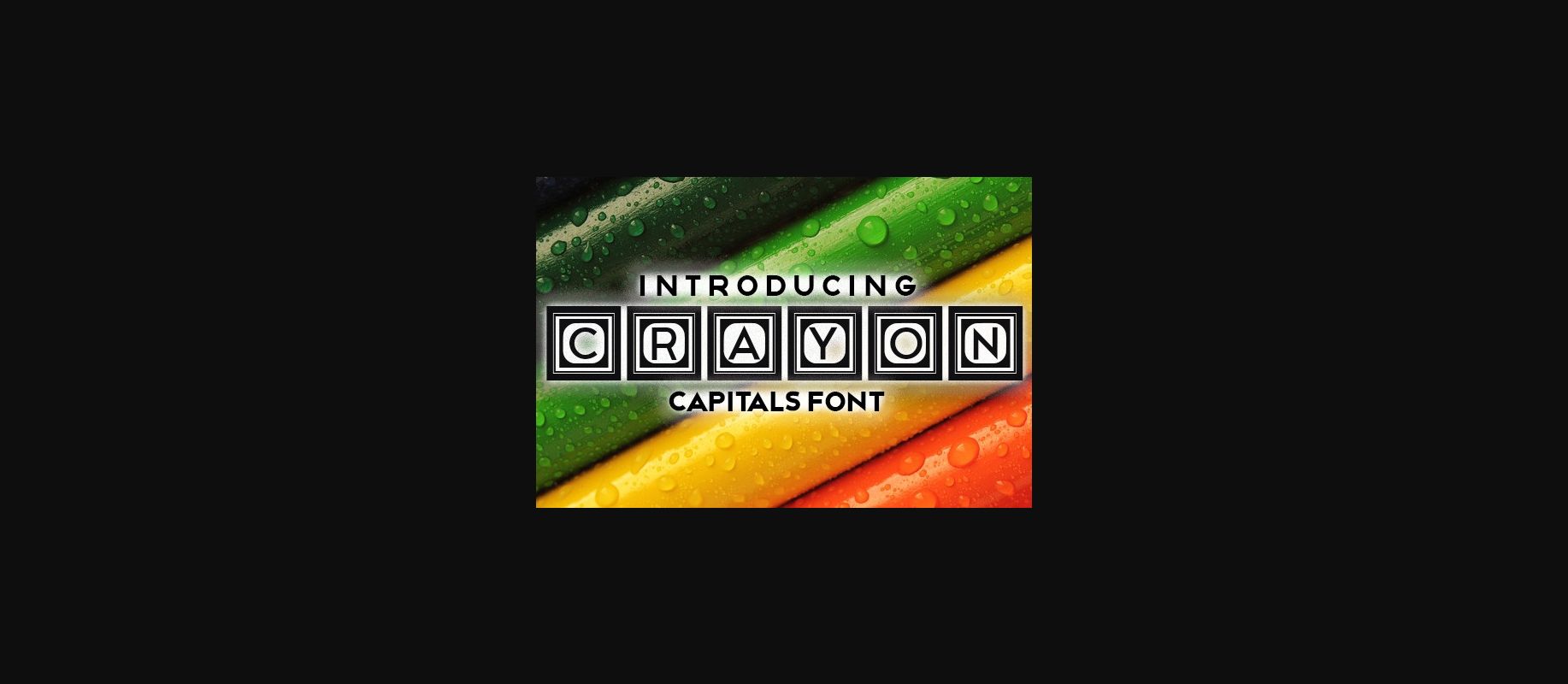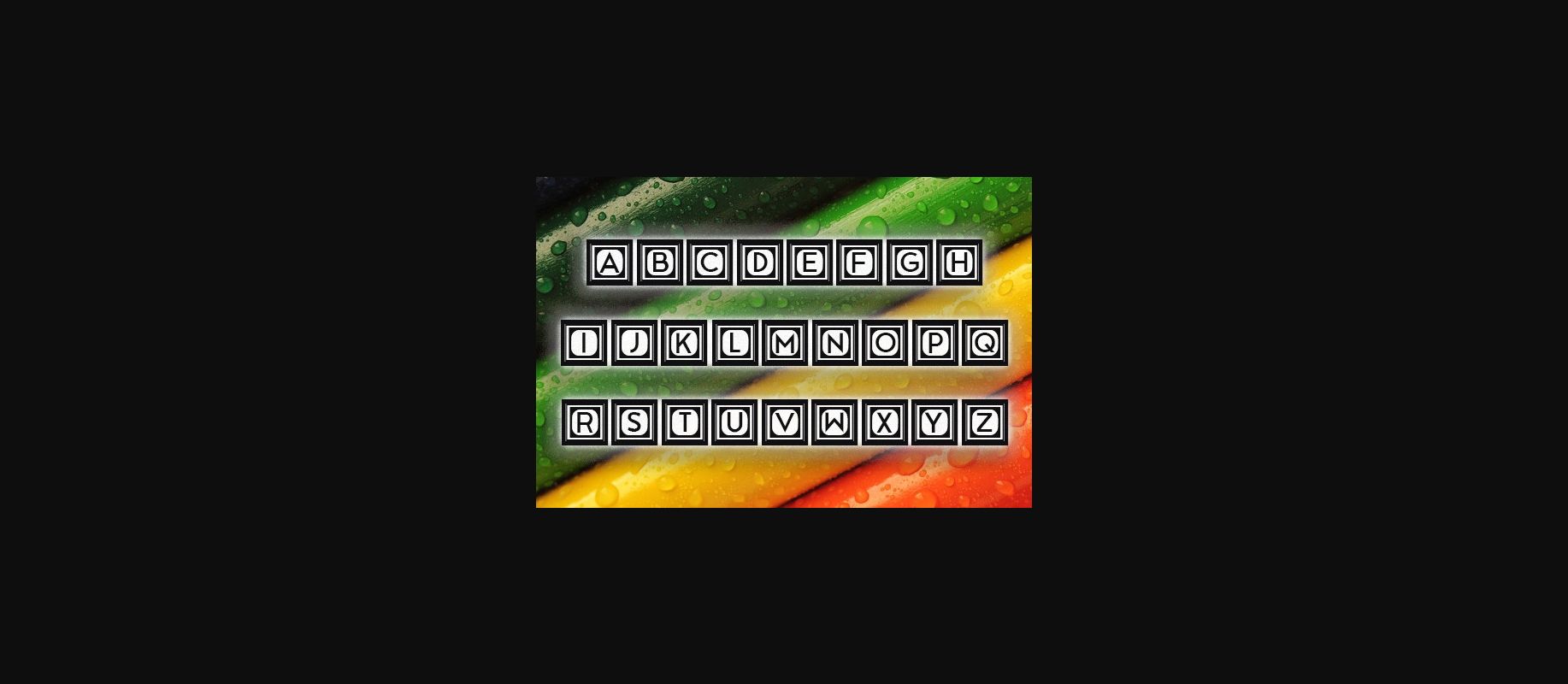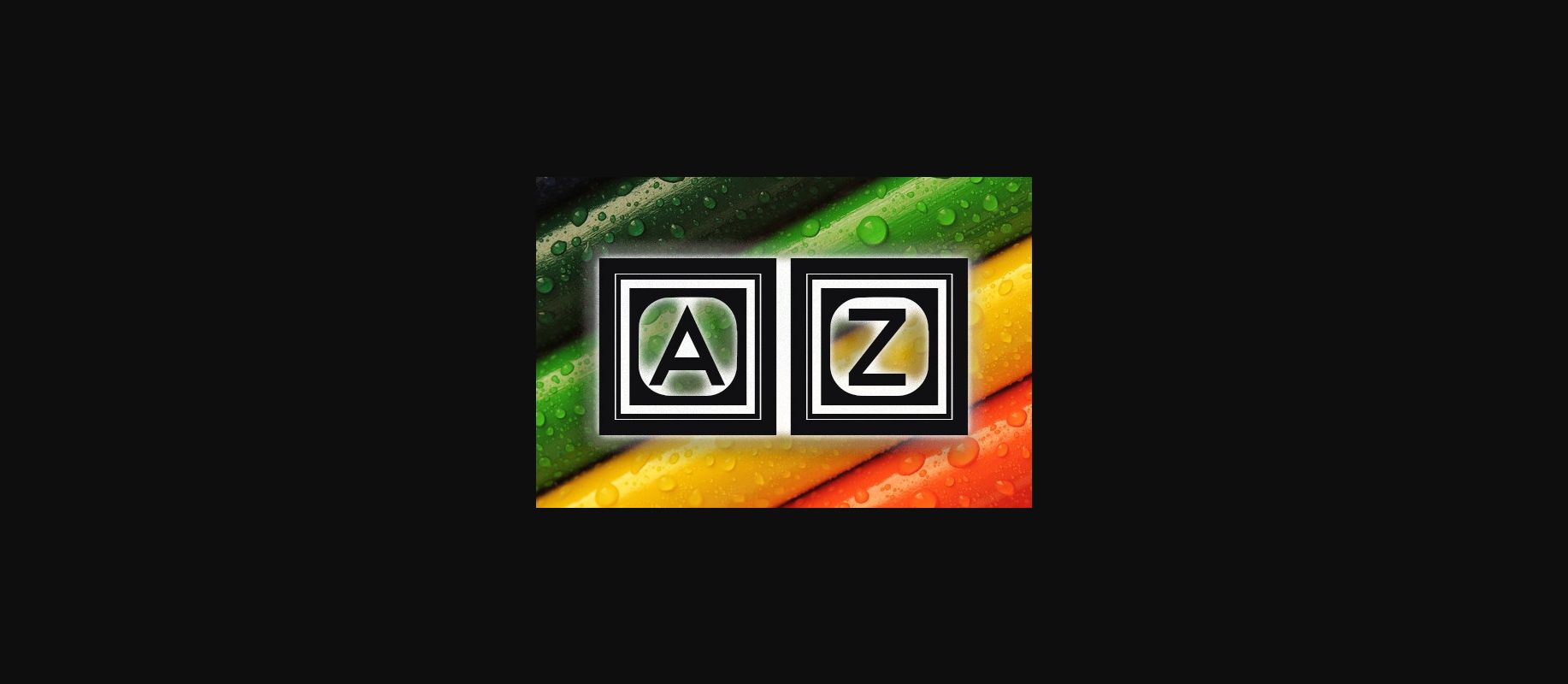
HomeDecorative FontsCrayon Font Decorative Fonts Crayon Font FacebookXPinterestWhatsApp 1 of 5 ... Crayon Font Poster 2... Crayon Font Poster 3... Crayon Font Poster 4... Crayon Font Poster 5... About Crayon Font Crayon is a stylish capitals font with a vintage feel. Use this decorative font on your retro projects and give them a neat touch. DOWNLOAD NOW People also explored Belive Font Hey Benito Font Sincelo Ornaments Font Alexandra Font Beauty Heart Font Mletre Font Tiger Molgan Font Esmonthy Font 372 0 TagsCrayonCrayon Font Previous articleBall FontNext articleRuined Dreams Font LEAVE A REPLY Cancel reply Comment: Please enter your comment! Name:* Please enter your name here Email:* You have entered an incorrect email address! Please enter your email address here Website: Save my name, email, and website in this browser for the next time I comment. Personal Use Free Amrina Personal Use Free Read more about this font Kanza Personal Use Free Read more about this font Breakaway Personal Use Free Read more about this font Bonhomie Personal Use Free Read more about this font BLOG Free vs Paid Fonts: Why Investing in Premium Fonts Is Worth It Free vs Paid Fonts: Why Premium Fonts Are Worth It in 2025 The debate of free vs paid fonts continues in the design world. While... How to Install and Use Fonts on Windows, macOS, and Web Projects How to Cut Any Font on Cricut: Convert a Font to SVG (Free) The 10 Best Handwriting Fonts to Add Personality to Your Designs